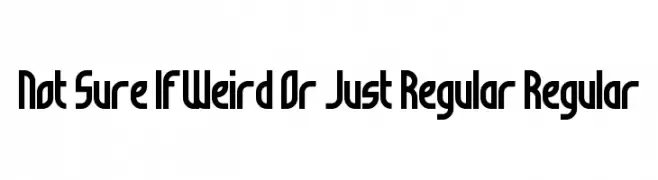
A bold, geometric font with a modern and impactful design.
A bold, angular font with a futuristic and edgy design.
A bold, geometric font with a modern and structured design.